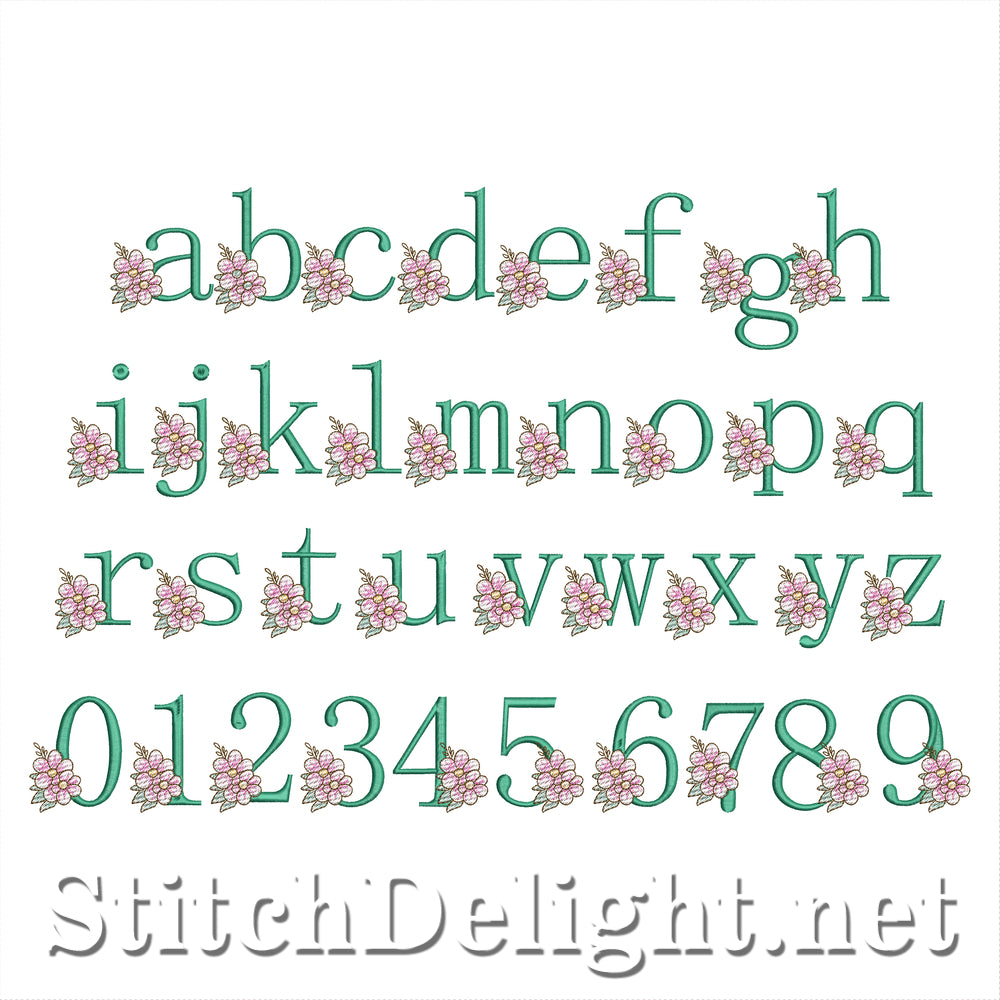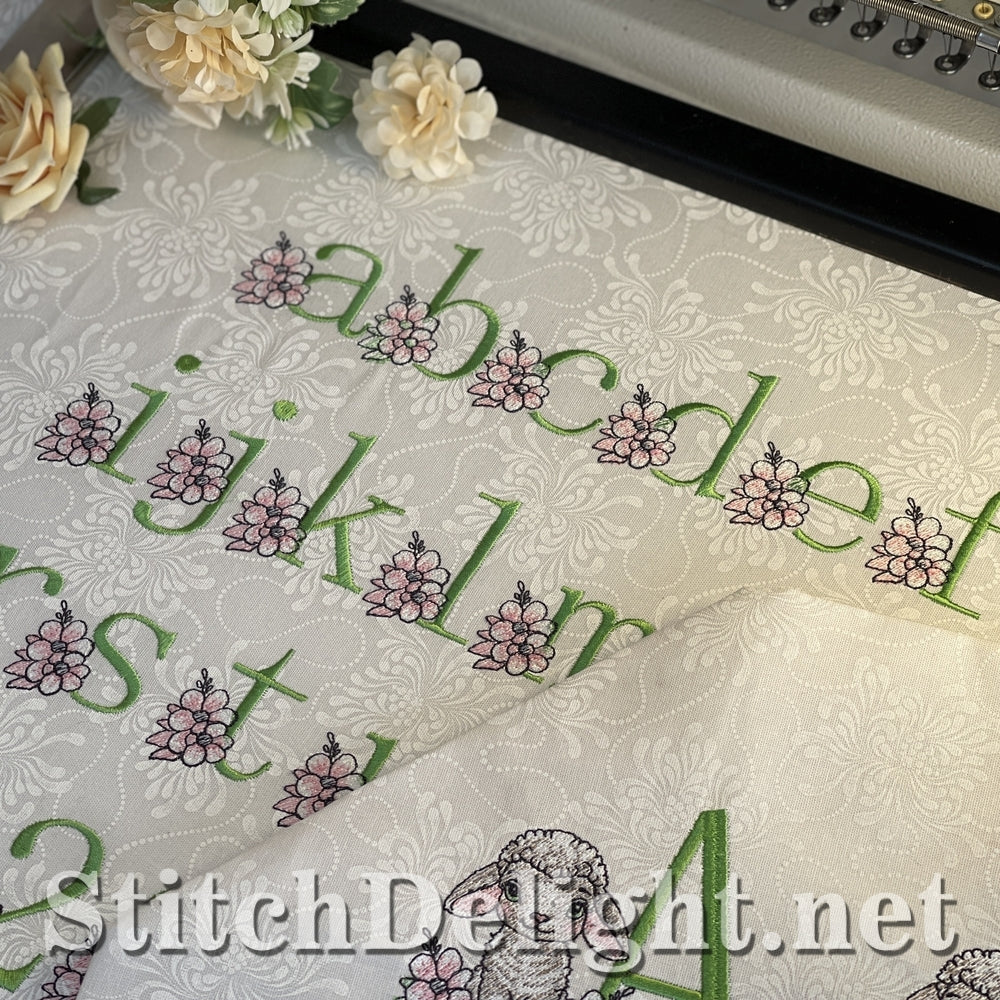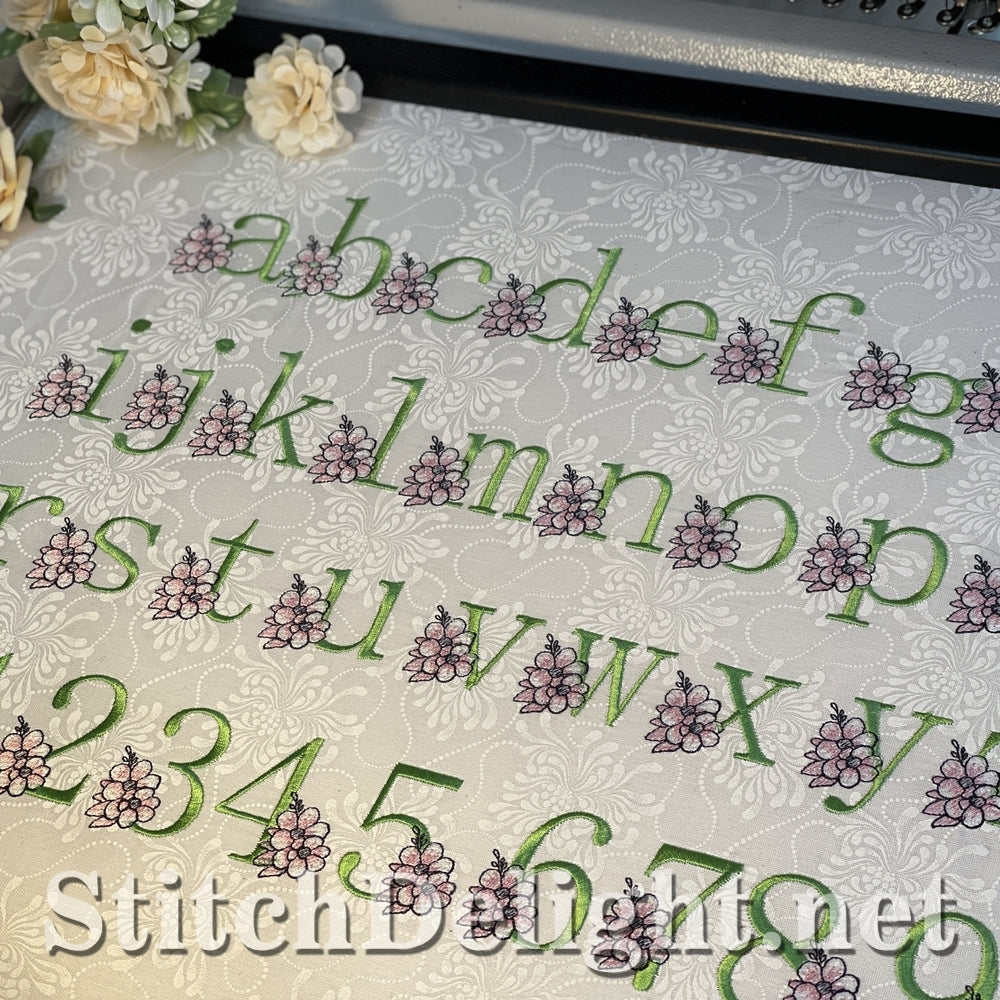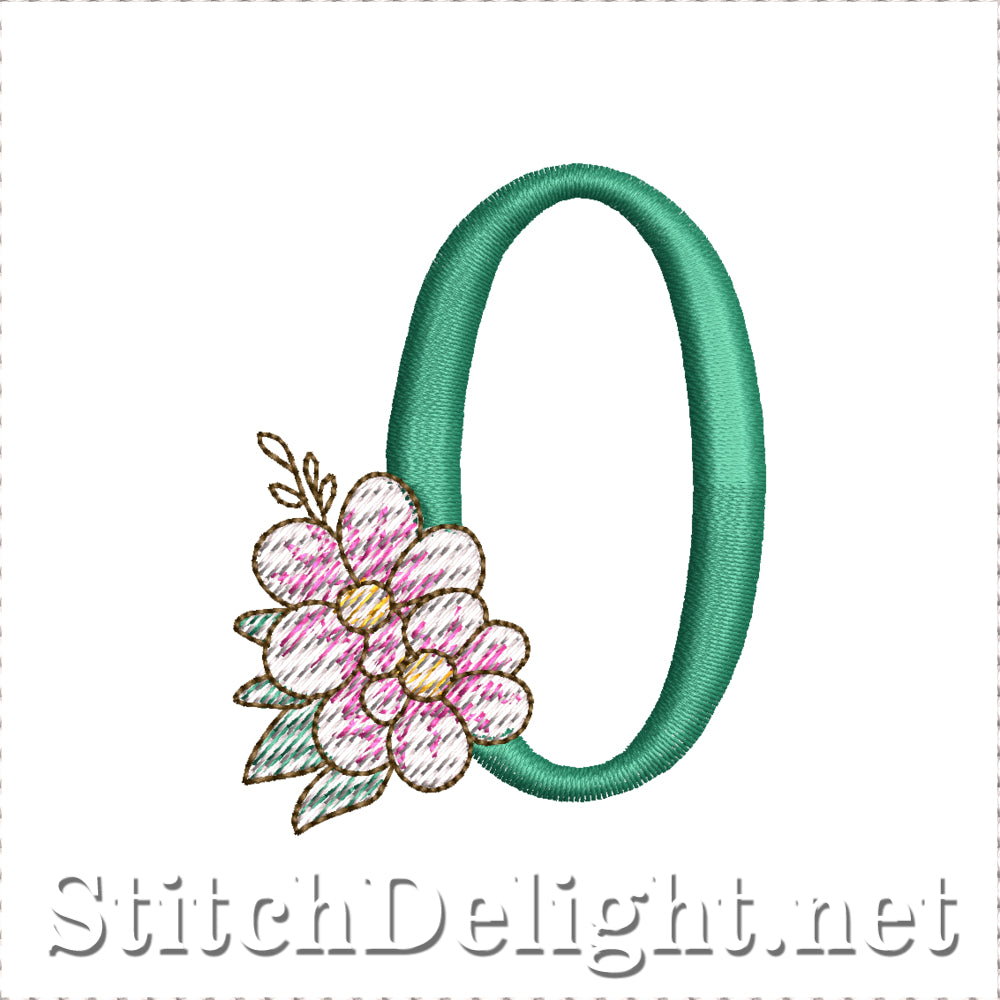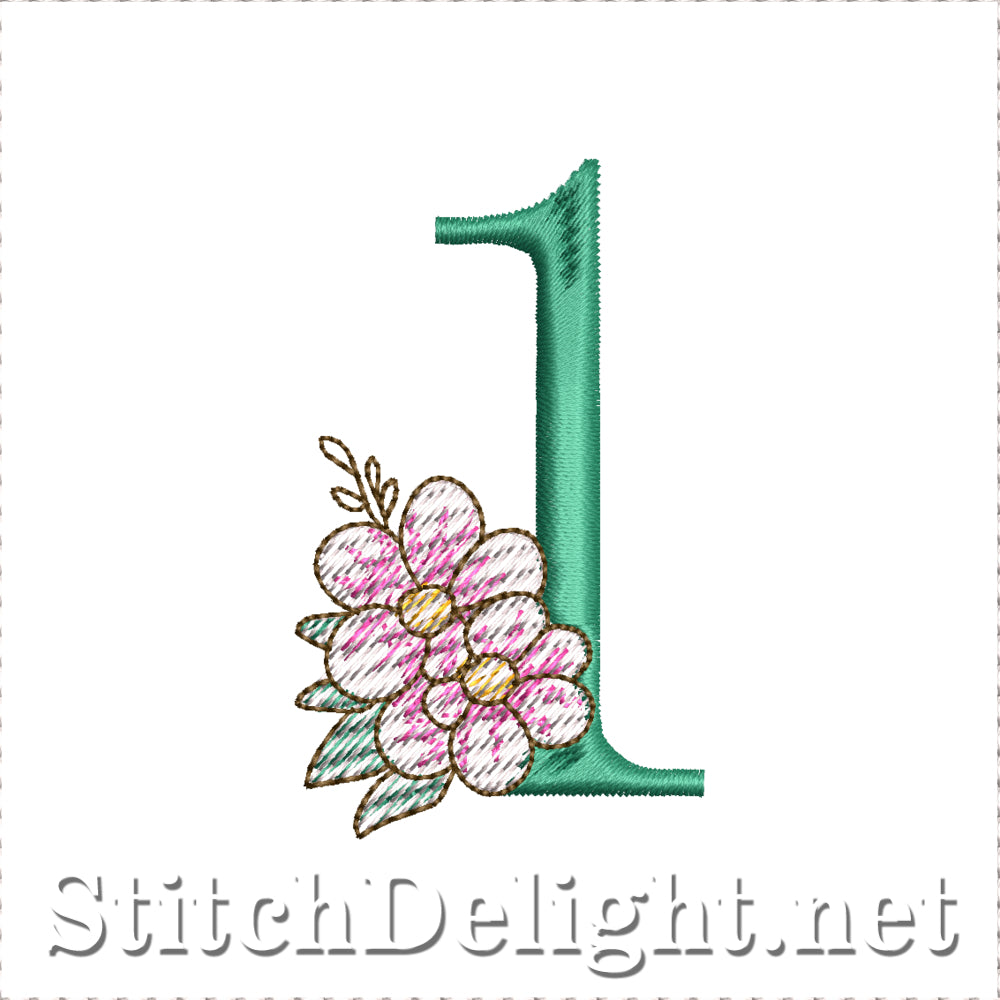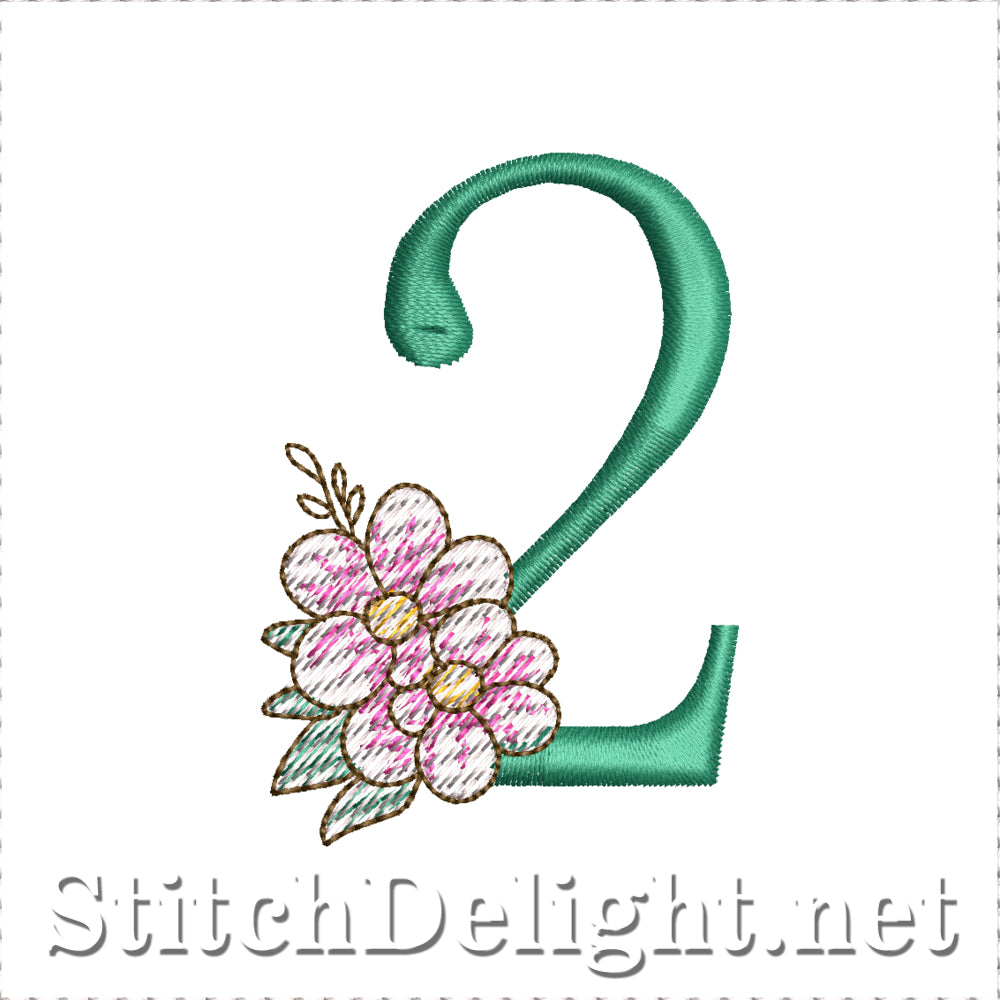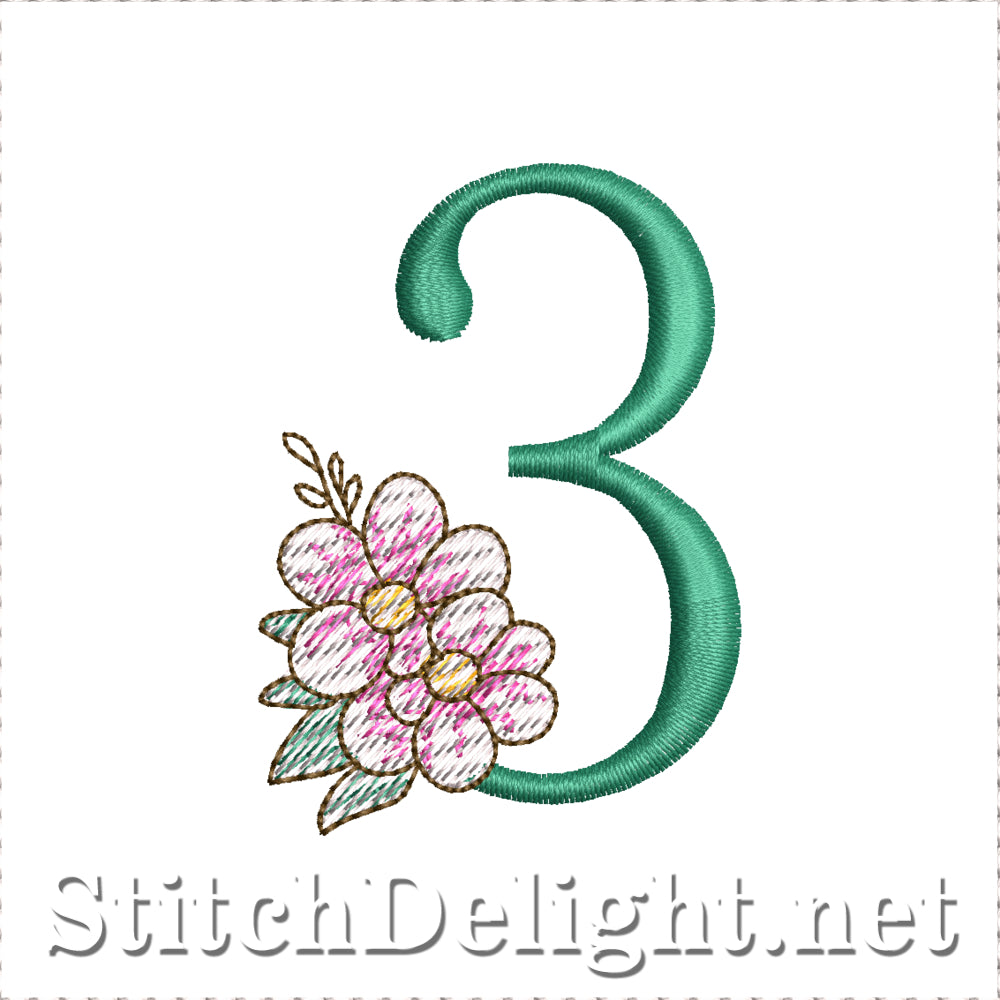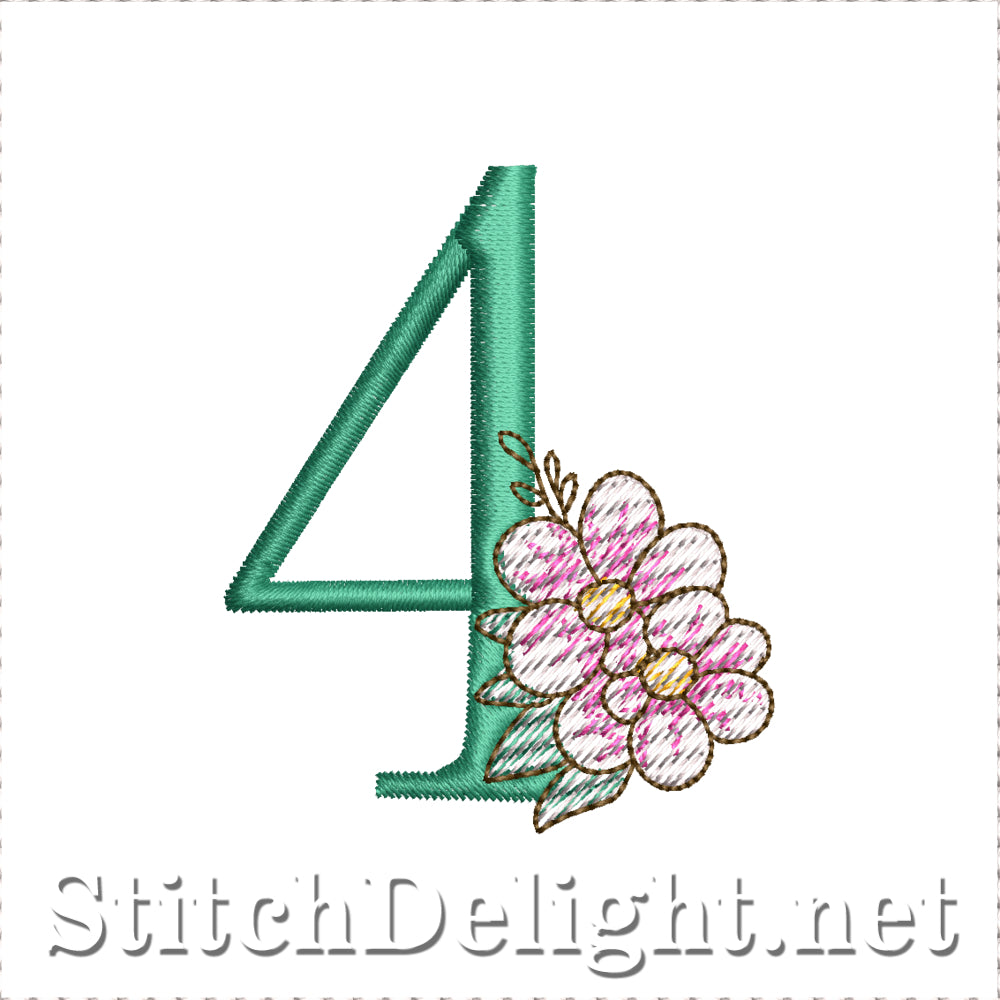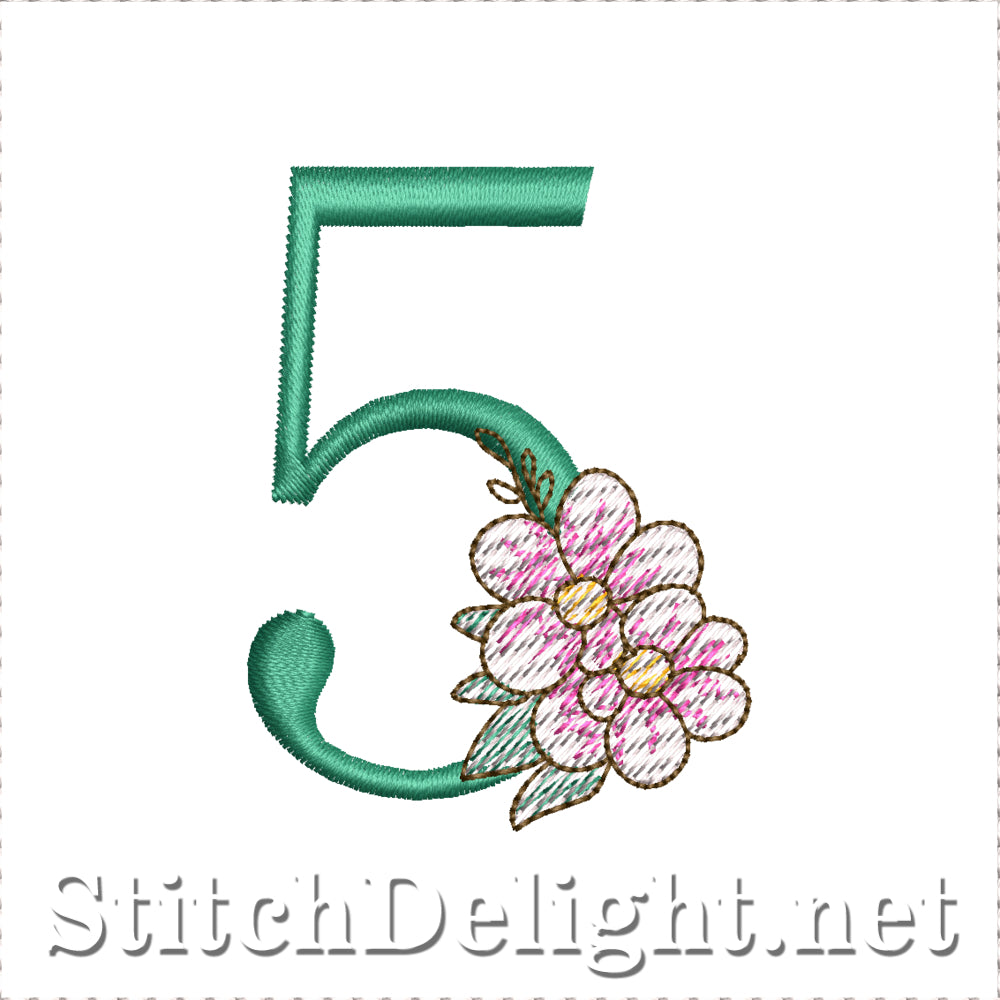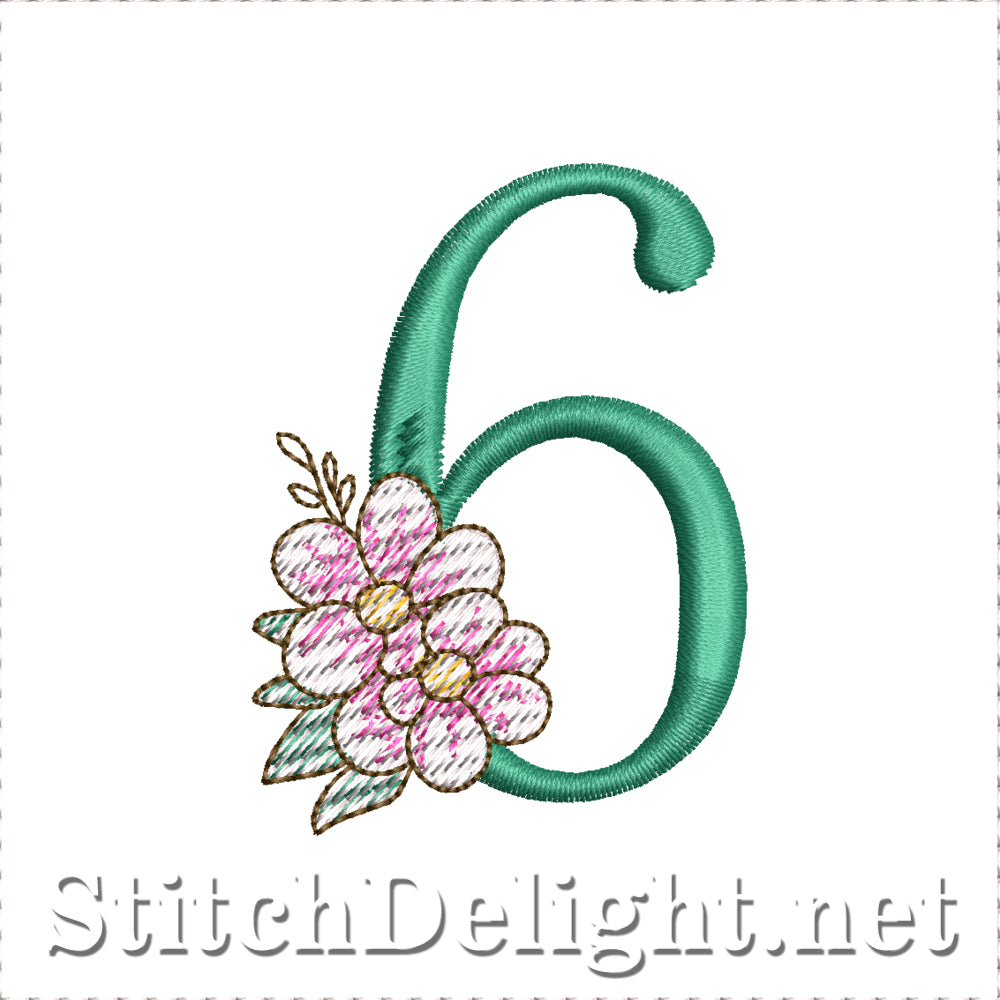
This is the matching font for SDS3386 Baby Lamb Font , the perfect font to accompany the October Collectors font with a letter height of just 58 mm and the collectors letter coming in at 88mm. Bella the Baby Lamb loves the Alphabet with each step she takes a new letter blooms to life, wrapped in soft stitches and sprinkled with flowers. gentle and playful, Bella loves to curl up beside each letter, making the alphabet feel as cozy as a meadow at springtime. Surround Bella the baby Lamb with this adorable matching font.